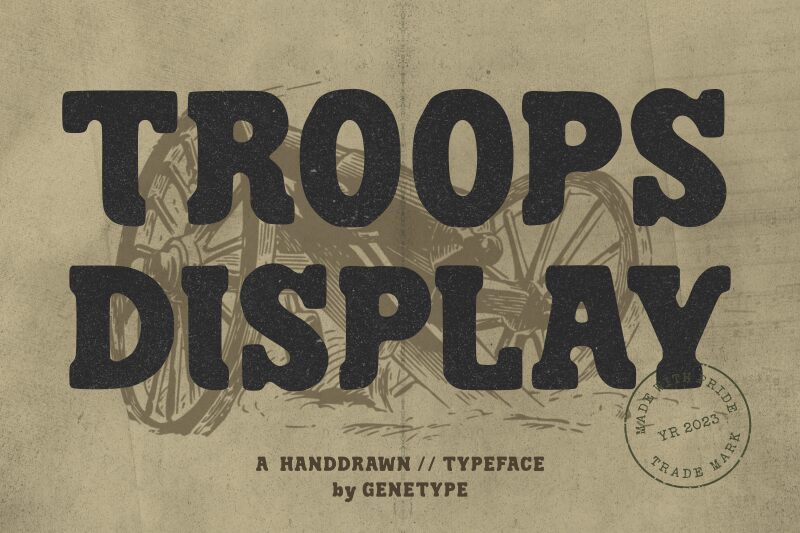
Troops Display
Troops Display font by Genetypeco is a bold display typeface whose curved letters have been influenced by retro styles. Its proportions, aesthetic, layout, and structure make it distinct from other fonts and thus a good addition to your collection for specialized projects. All of its rounded letters communicate a friendly tone within any project.
Benefits associated with Troops Display can be enjoyed while working on magazine layouts, headlines, advertisement campaigns or SV campaigns in the fields of fashion or architecture. A free option for business cards, shopping center signs, cafe posters and book covers are also some other good ways this font can be implemented.